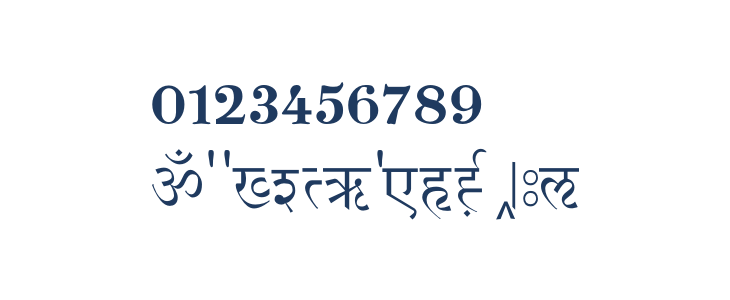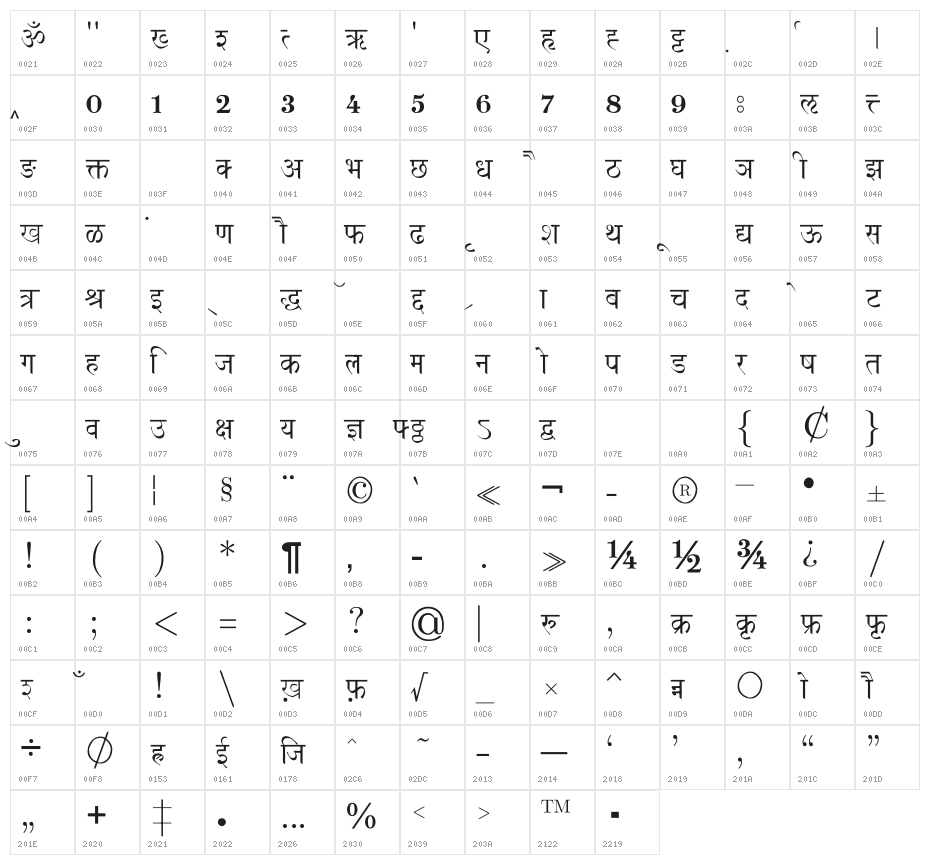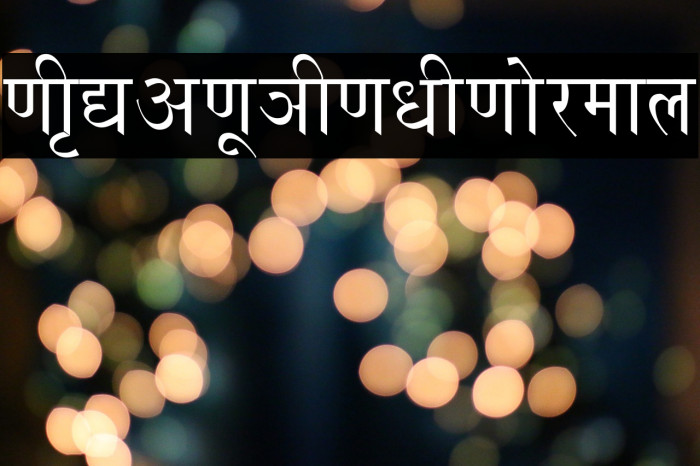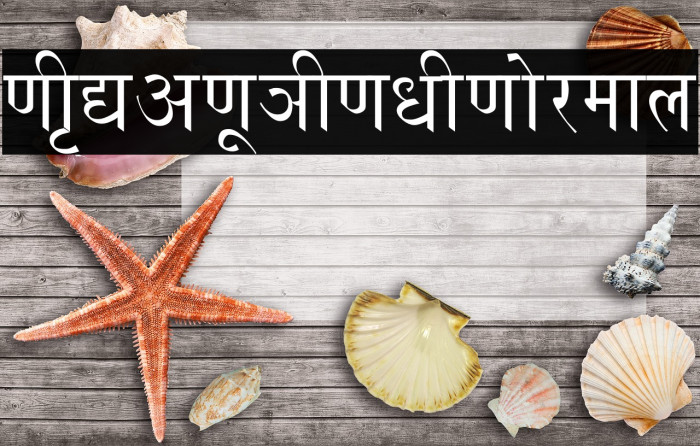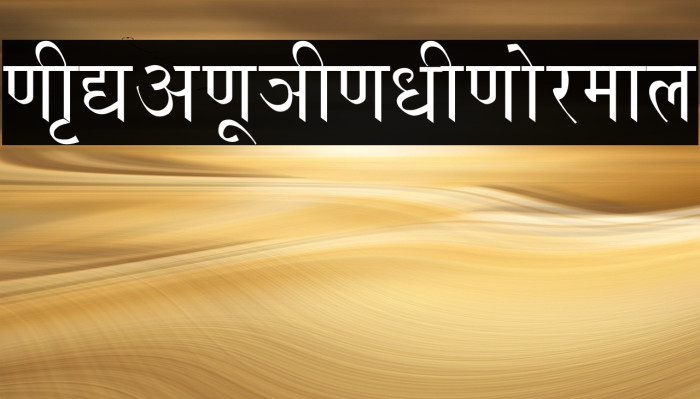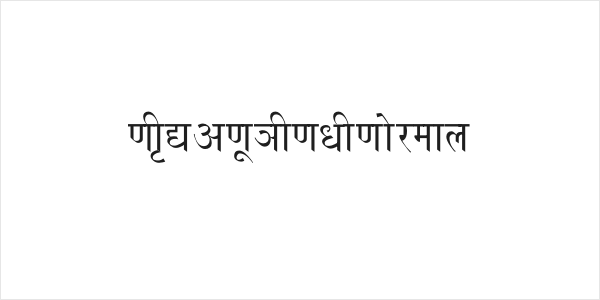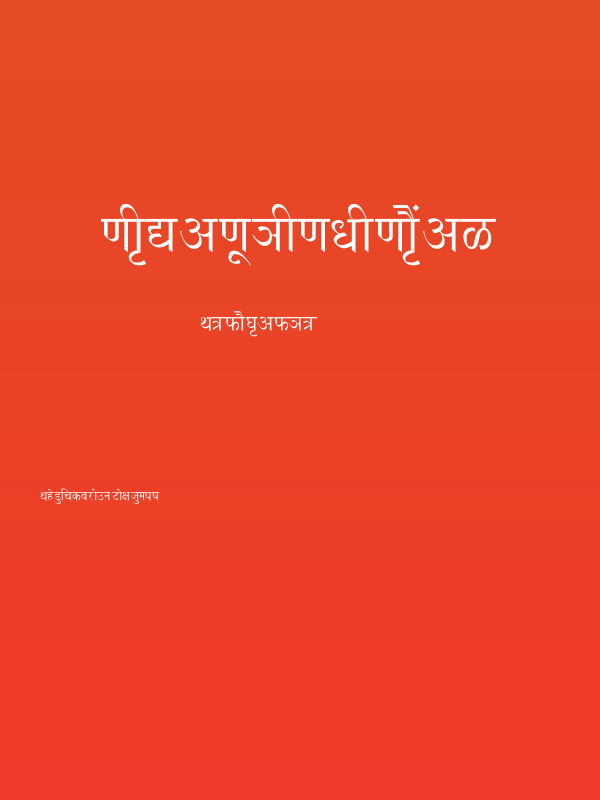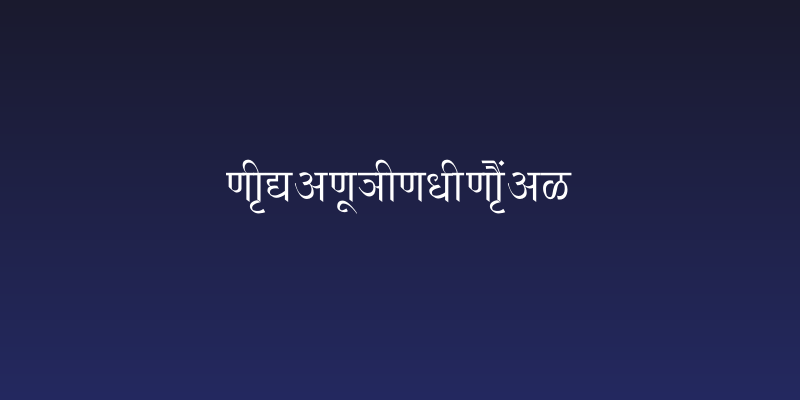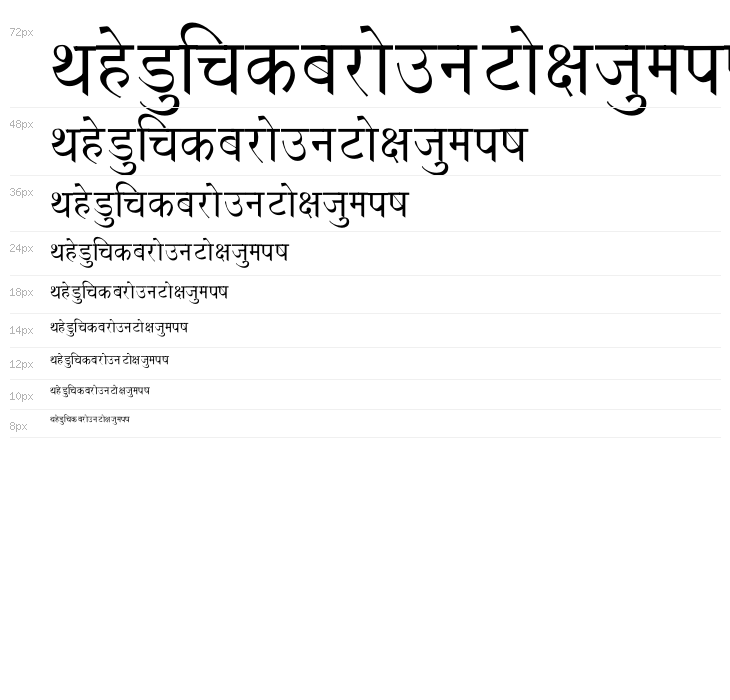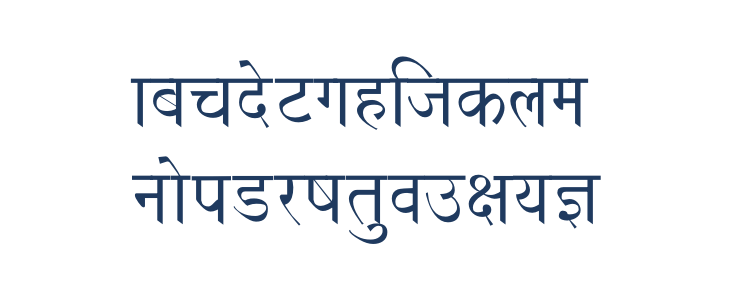
NIRVANU HINDI Normal Font
NIRVANU HINDI Normal Description
This font presents a traditional and elegant Hindi script with a classic serif style. The characters are well-defined with a moderate stroke contrast, giving it a balanced and readable appearance. The numerals are bold and clear, matching the overall aesthetic of the script. The font includes a variety of special characters, enhancing its versatility for different types of text. The spacing between characters is normal, ensuring readability while maintaining a cohesive look. This font is suitable for formal documents, educational materials, and any project that requires a touch of cultural authenticity.
| Use Case | Headlines, Body text, Educational materials |
| Proposed Projects | Ideal for educational materials, formal documents, cultural publications, and signage. |